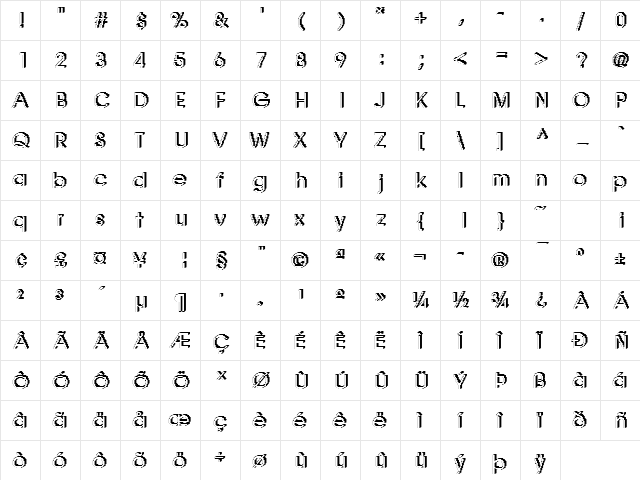
DTCRoughM06 Regular Font Preview
DTCRoughM06 Regular
Design Context for DTCRoughM06 Typeface
DTCRoughM06 trades polish for personality, using distressed and eroded forms to bring grit and attitude to creative work.
Suited to punk-influenced zines, underground music branding, streetwear, and raw, anti-corporate design.
Pro Tip: Pair DTCRoughM06 with intentionally raw or lo-fi design elements. Fighting against it with overly polished surroundings will undermine its personality.